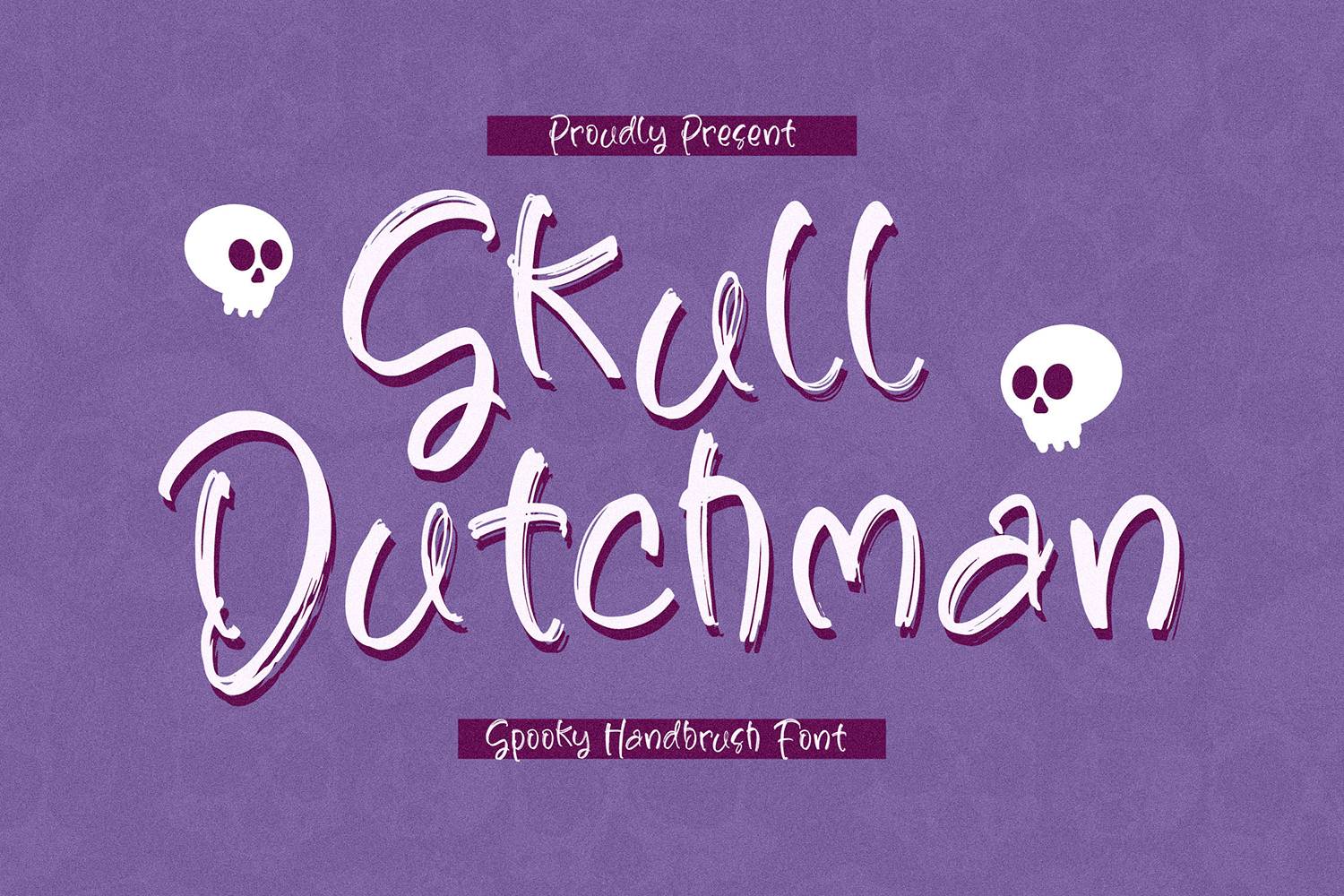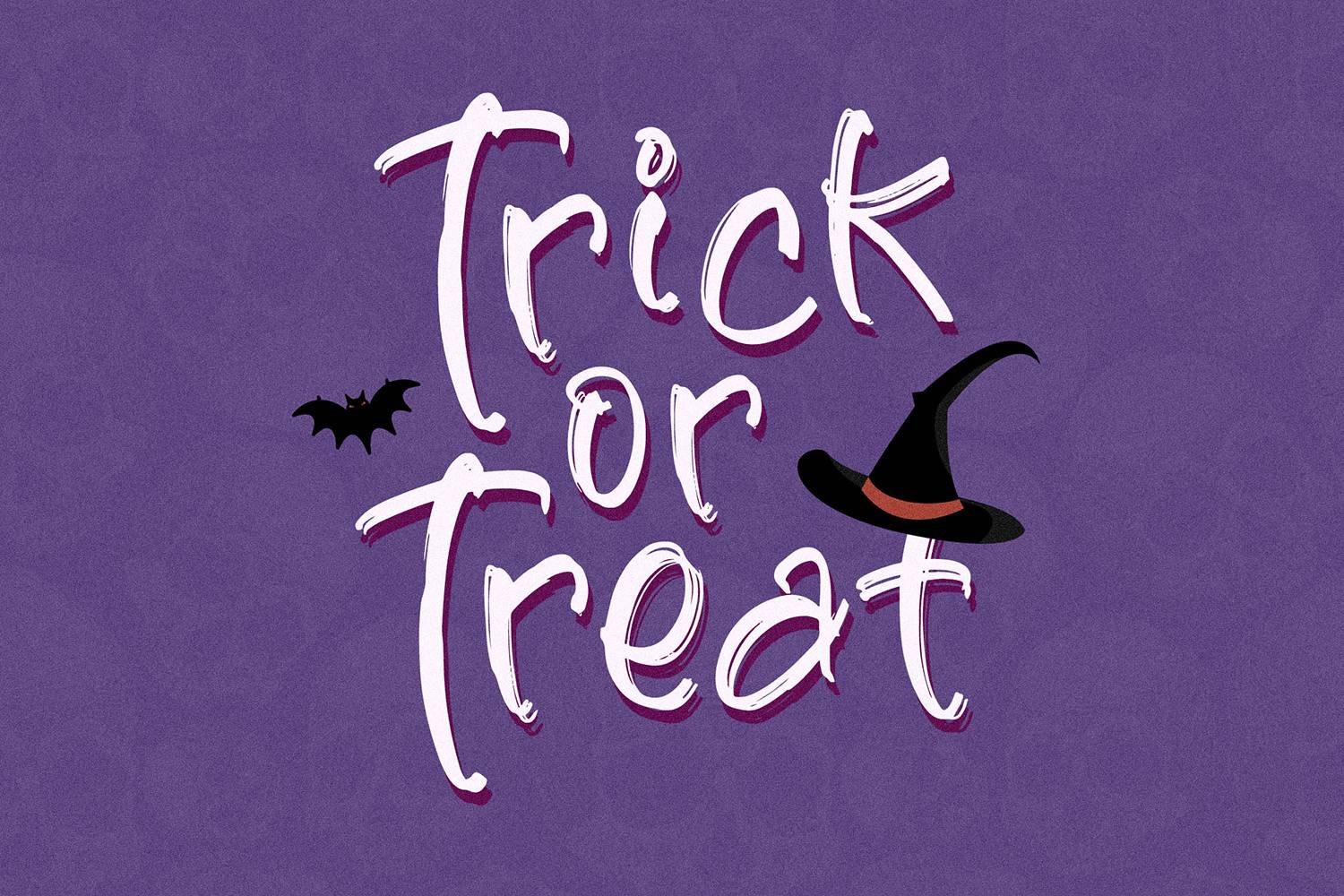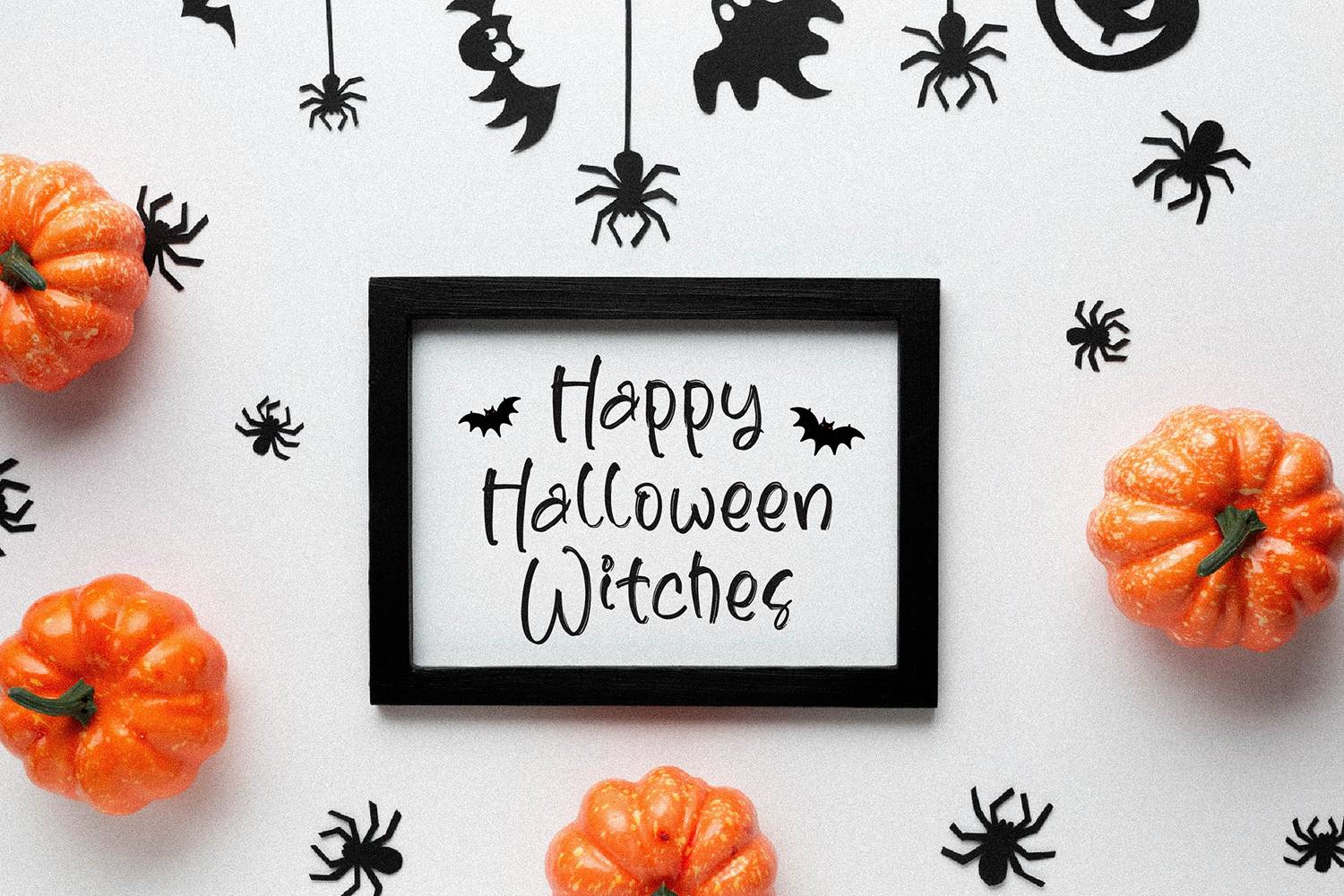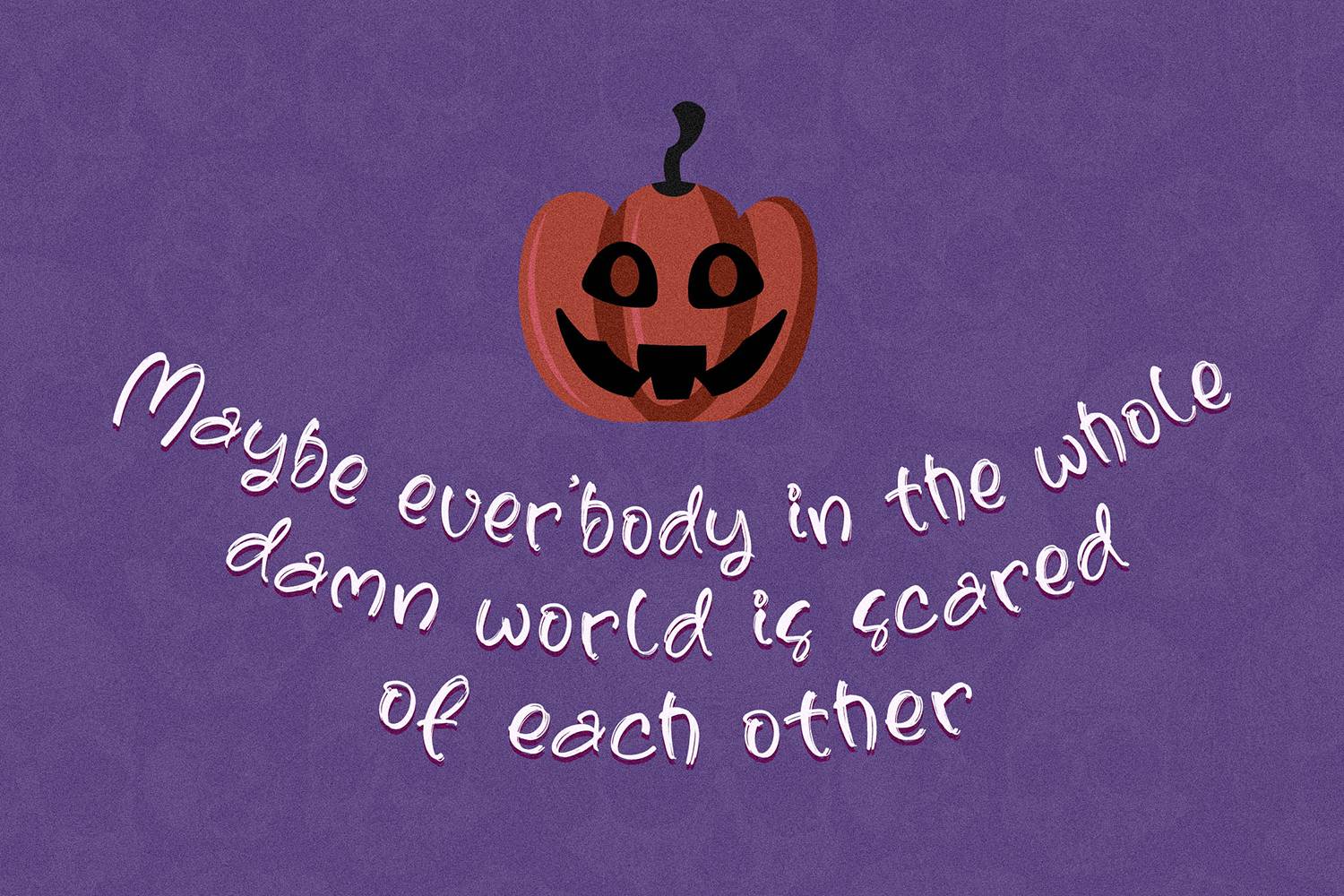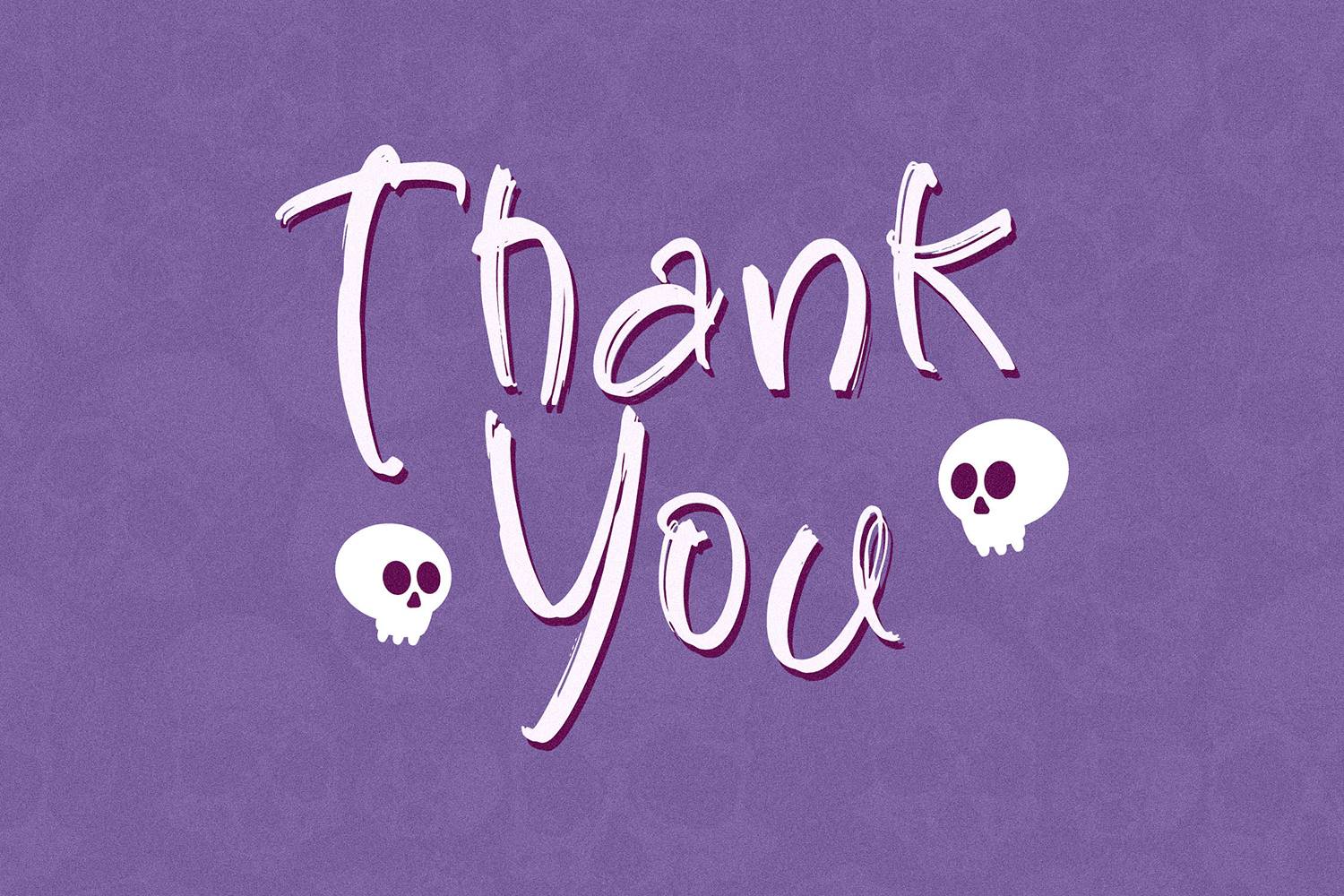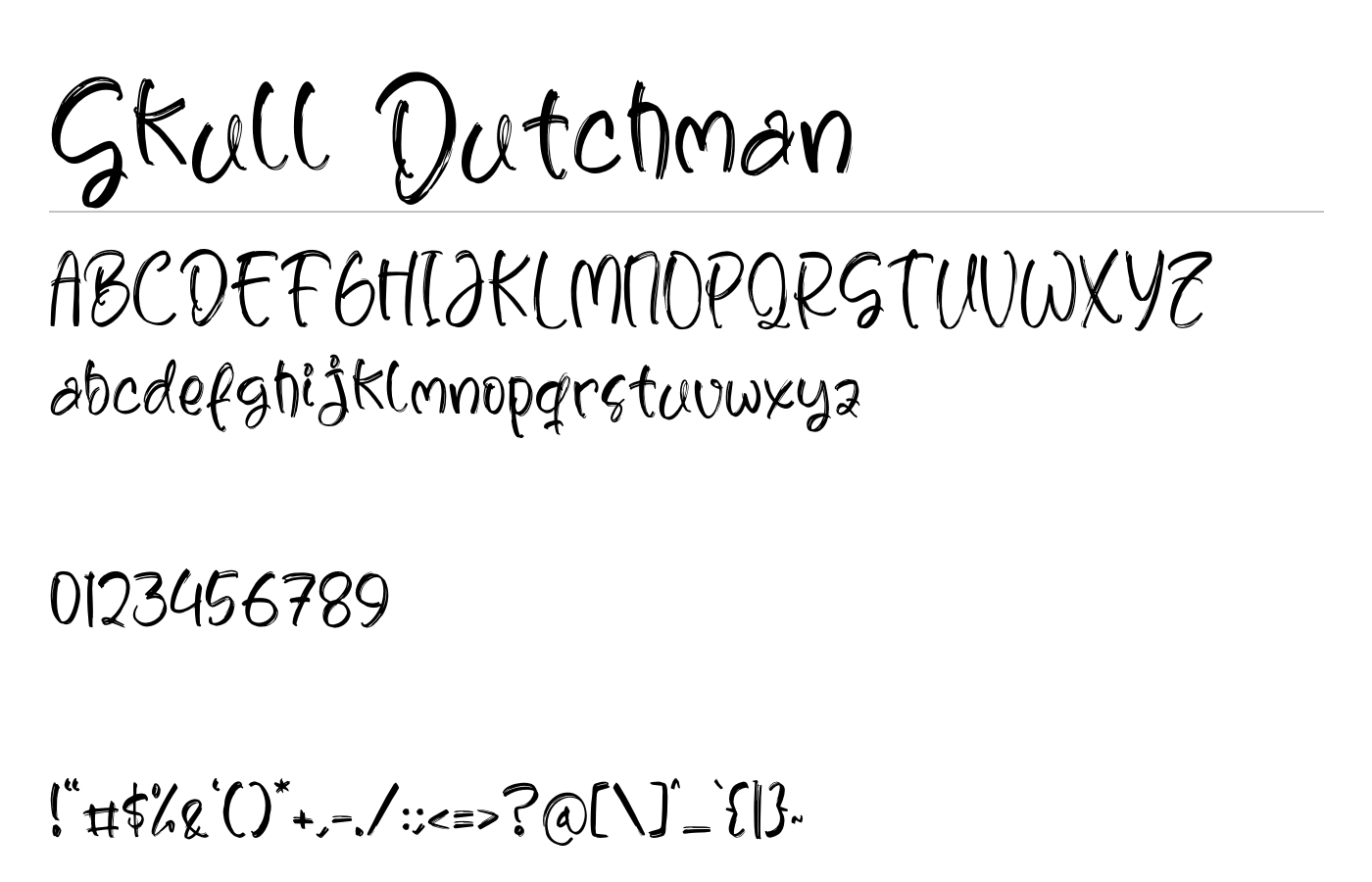
Skull Dutchman is a quirky, hand-drawn script font with a playful and slightly eerie character, featuring uneven strokes and irregular, organic shapes that give it a raw, expressive feel. Its tall, narrow letterforms and rough texture make it perfect for creative projects seeking an informal, adventurous vibe such as Halloween-themed designs, posters, or indie branding. This font works best in display sizes where its unique personality can shine and engage viewers with its distinctive charm.
Skull Dutchman Font
About Skull Dutchman Font